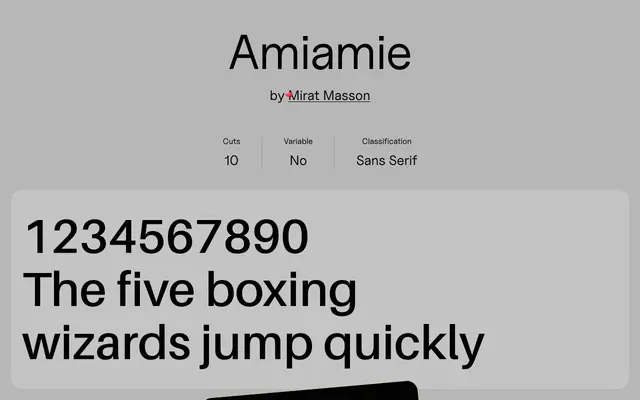
Amiamie
A 10-cut sans-serif by Mirat Masson, released under the Open Inclusive Font License for free commercial and personal use.
Designed by Mirat Masson and distributed through Uncut, Amiamie is a sans-serif family spanning 10 cuts. It is released under the Open Inclusive Font License, which permits commercial use, modification and redistribution with some additional conditions. No variable font version is available.
Classified as Sans Serif by the foundry. Limited information is available, but the name and 10-cut structure suggest a grotesque or humanist sans-serif family.